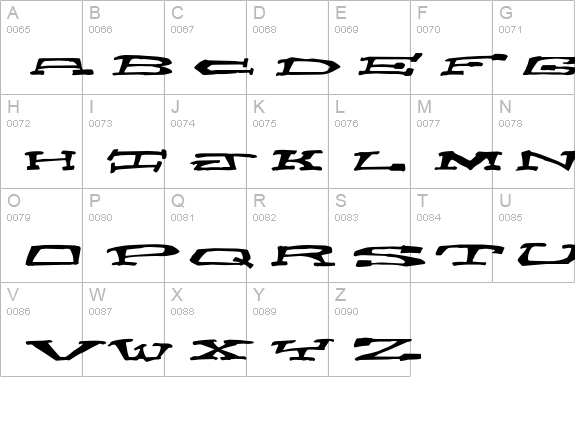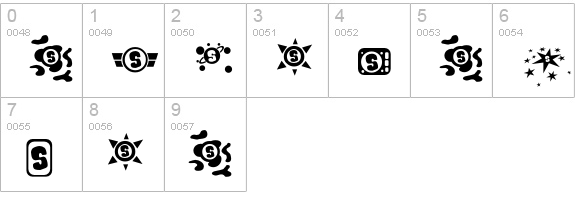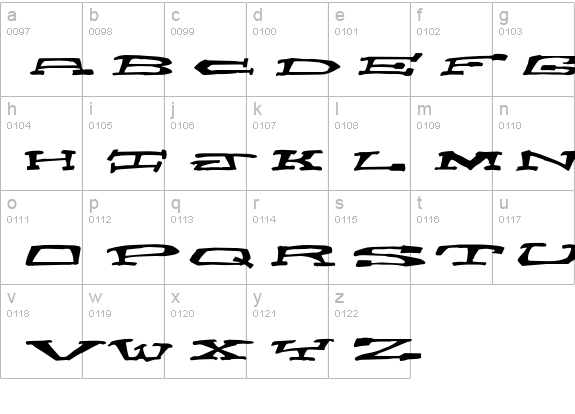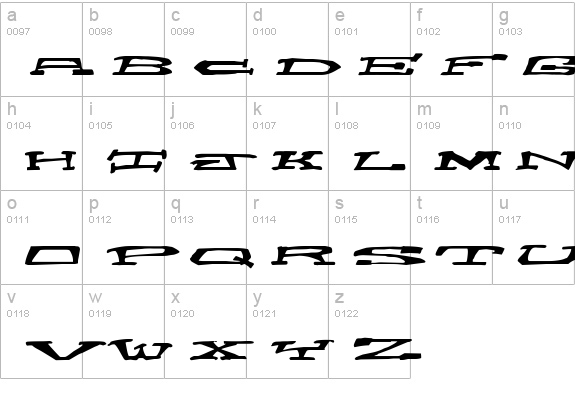
ChainCrank Font Details
Introducing ChainCrank, a versatile and modern font that adds a touch of elegance to any design project. With its unique blend of sharp angles and smooth curves, ChainCrank stands out as a distinctive typeface that commands attention. This font is perfect for a wide range of uses, from branding and logos to headlines and product packaging. ChainCrank is not only stylish and eye-catching, but it is also free to download at FontsMarket.com. This means that you can elevate your designs without breaking the bank. Whether you're a graphic designer, blogger, or small business owner, ChainCrank is a valuable addition to your font collection. Download ChainCrank today and unlock endless creative possibilities with this stunning and freely available font.